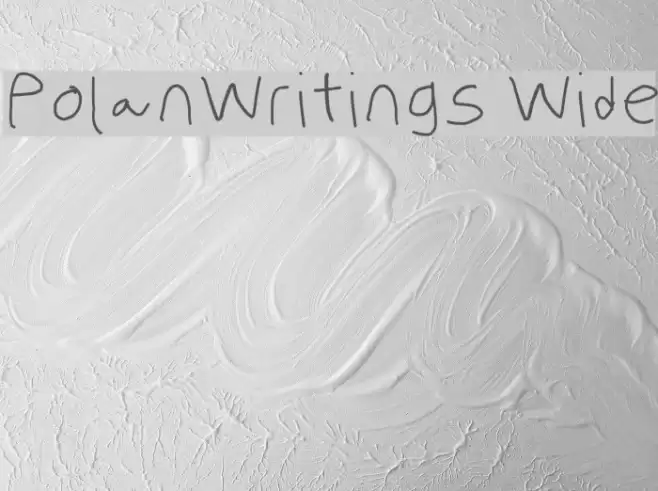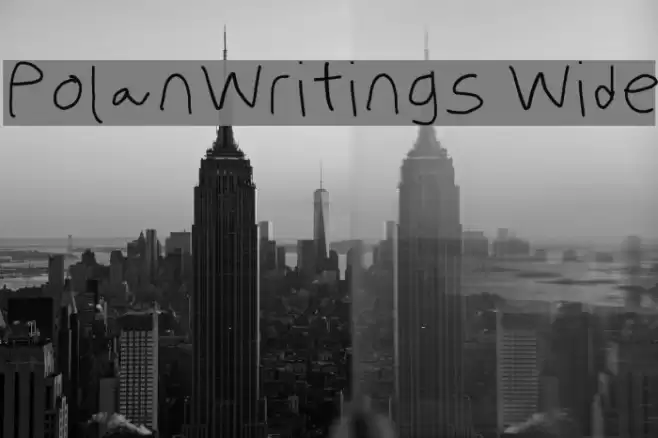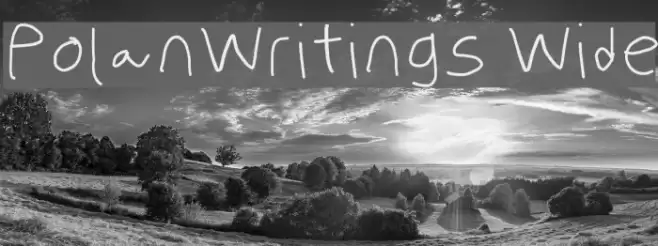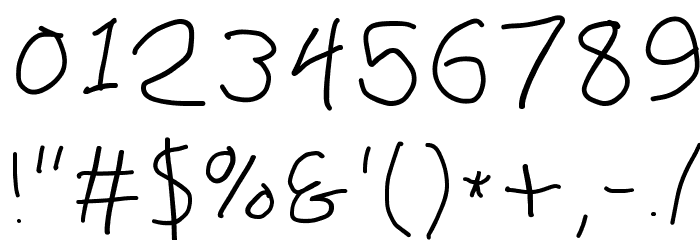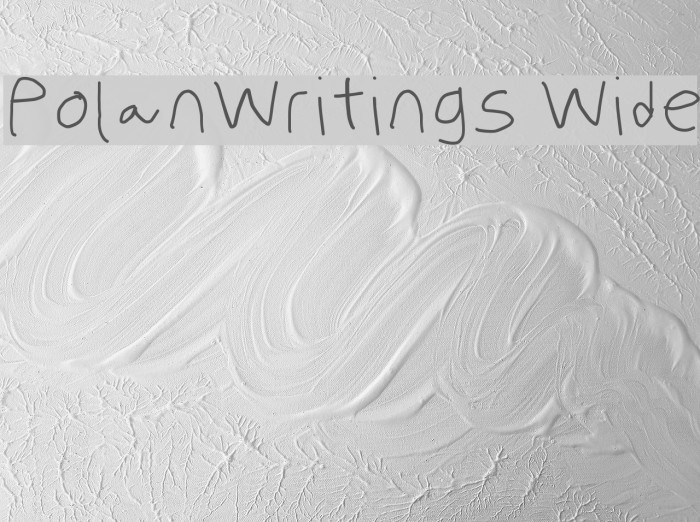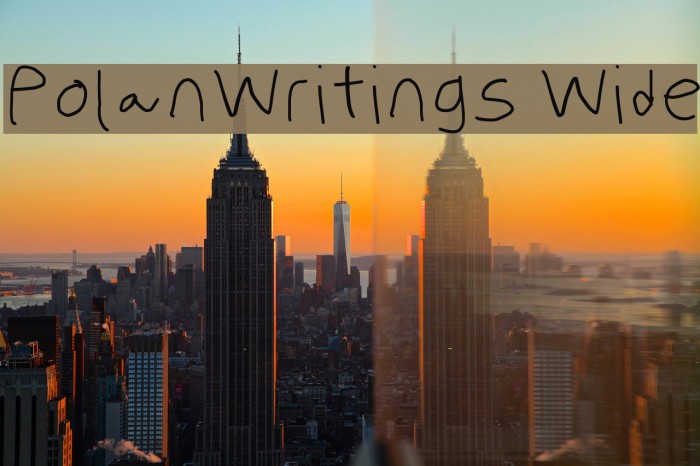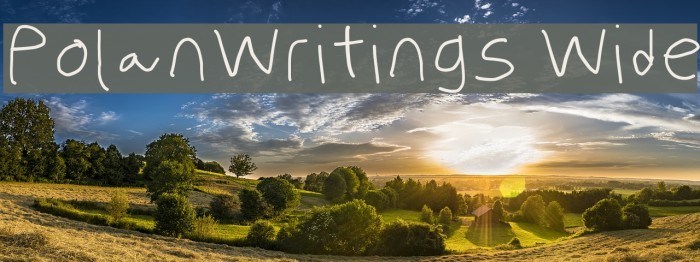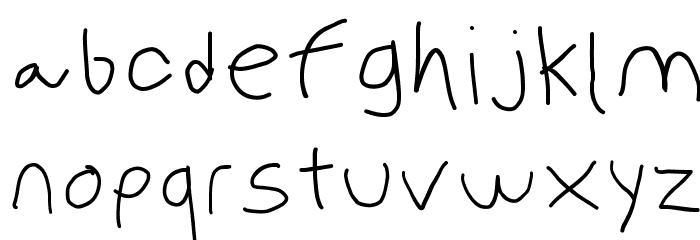
PolanWritings Wide Font
PolanWritings Wide Description
This font features a playful and informal handwritten style, characterized by its wide and slightly irregular letterforms. The strokes are smooth and consistent, giving it a casual and approachable appearance. The uppercase and lowercase letters maintain a uniform height, while the numerals and special characters blend seamlessly with the overall style. Its wide spacing between characters enhances readability, making it suitable for various creative projects. The font's unique charm lies in its ability to convey a sense of personality and warmth, making it ideal for personal and informal communications.
A playful, wide handwritten font with smooth, consistent strokes from Uncategorized fonts.
- Proposed Projects: Ideal for greeting cards, personal notes, children's books, and informal branding.
- Width: Expanded
- Character Spacing: Wide
- Overall Style: Casual
- Use Case: Personal notes, Informal branding, Greeting cards